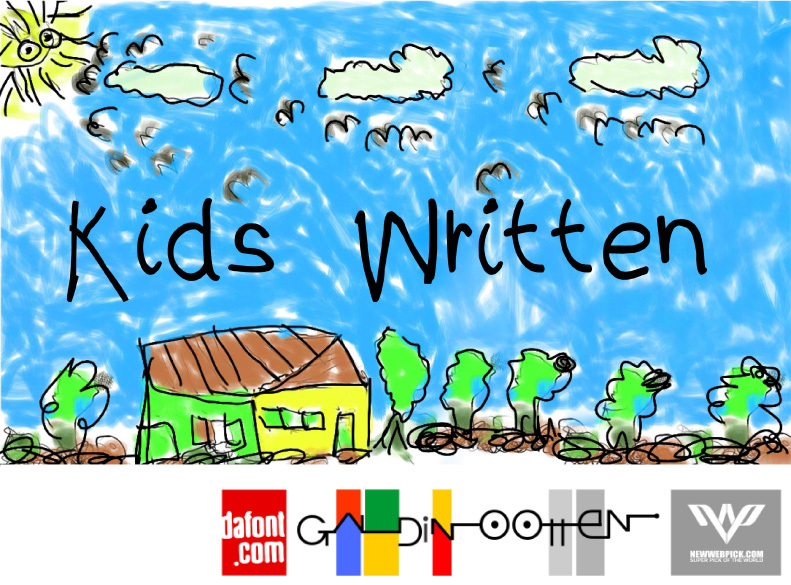
kidS Written by Galdino Otten is a free cartoon dingbat font built from lively childlike stick figures, animals, decorative forms, and hand-drawn letters. Uneven outlines give every figure a quick felt-tip pen finish.
It can turn a title into part of an illustration for children's books, classroom materials, or party invitations. The playful picture-writing approach is most convincing when a project wants lettering and cheerful doodles to share the same hand.
kidS Written